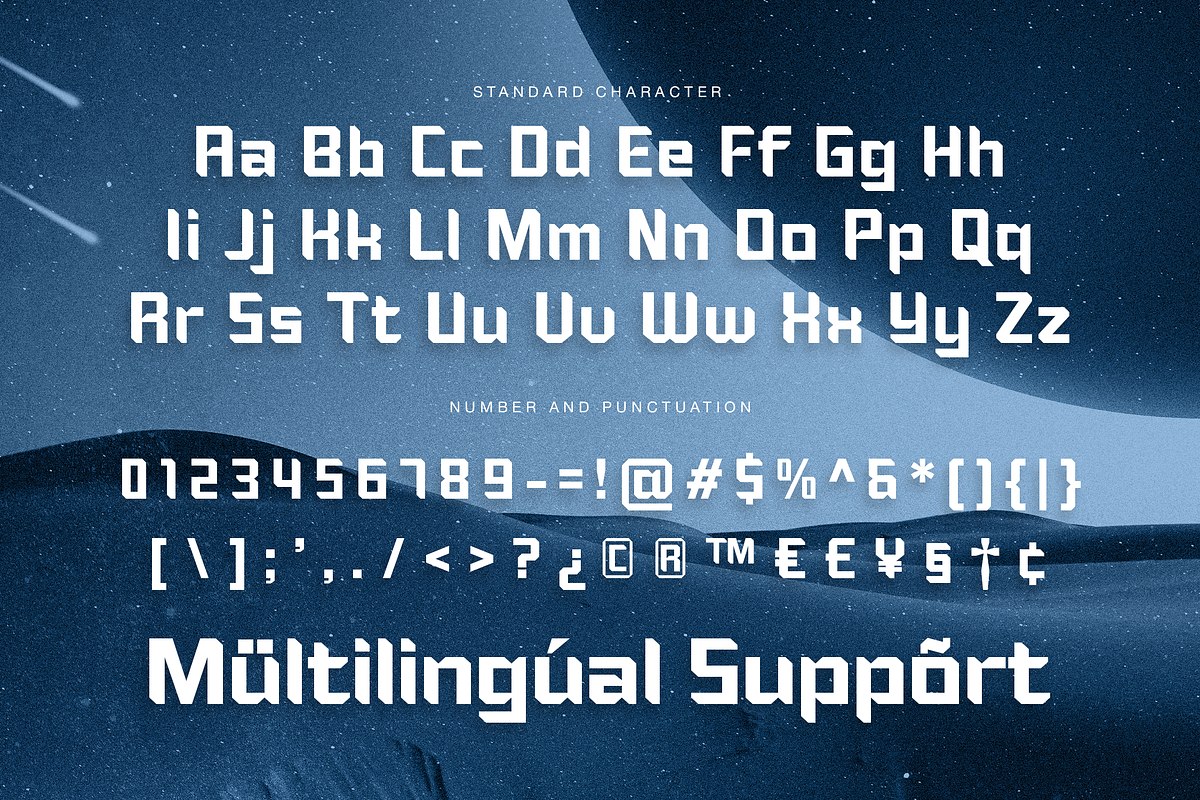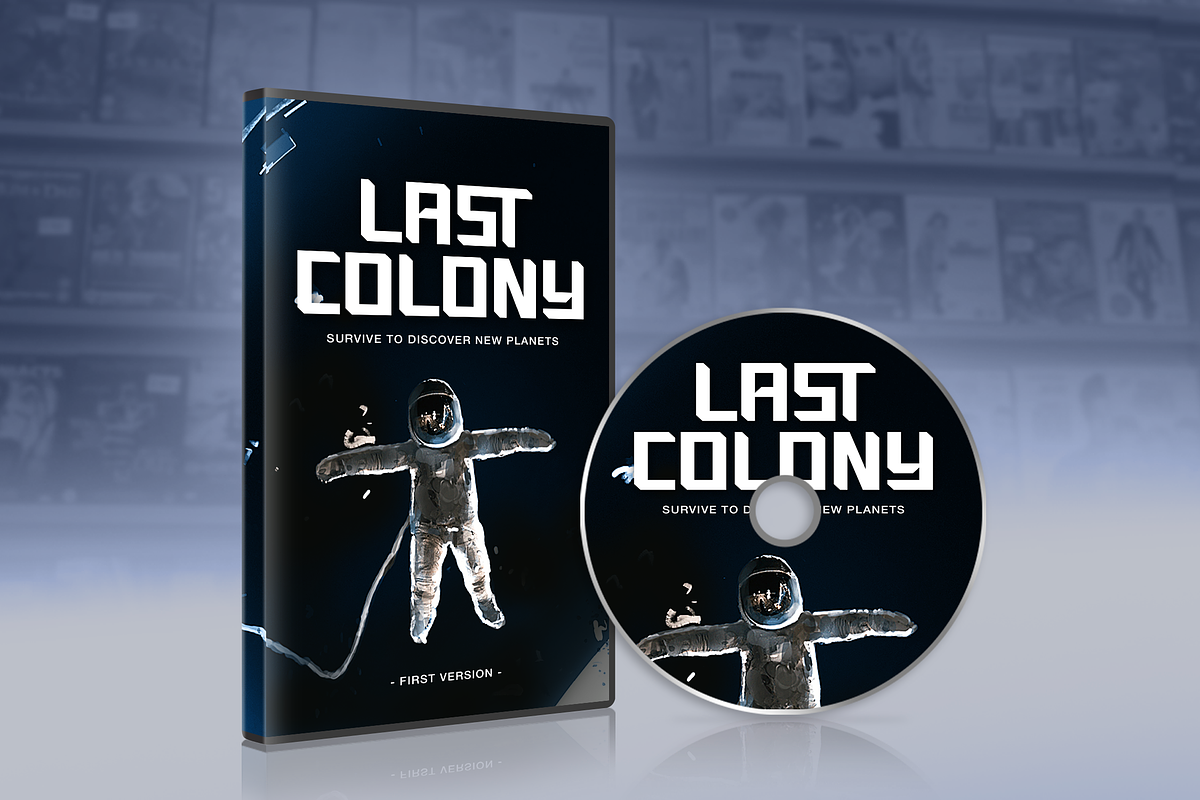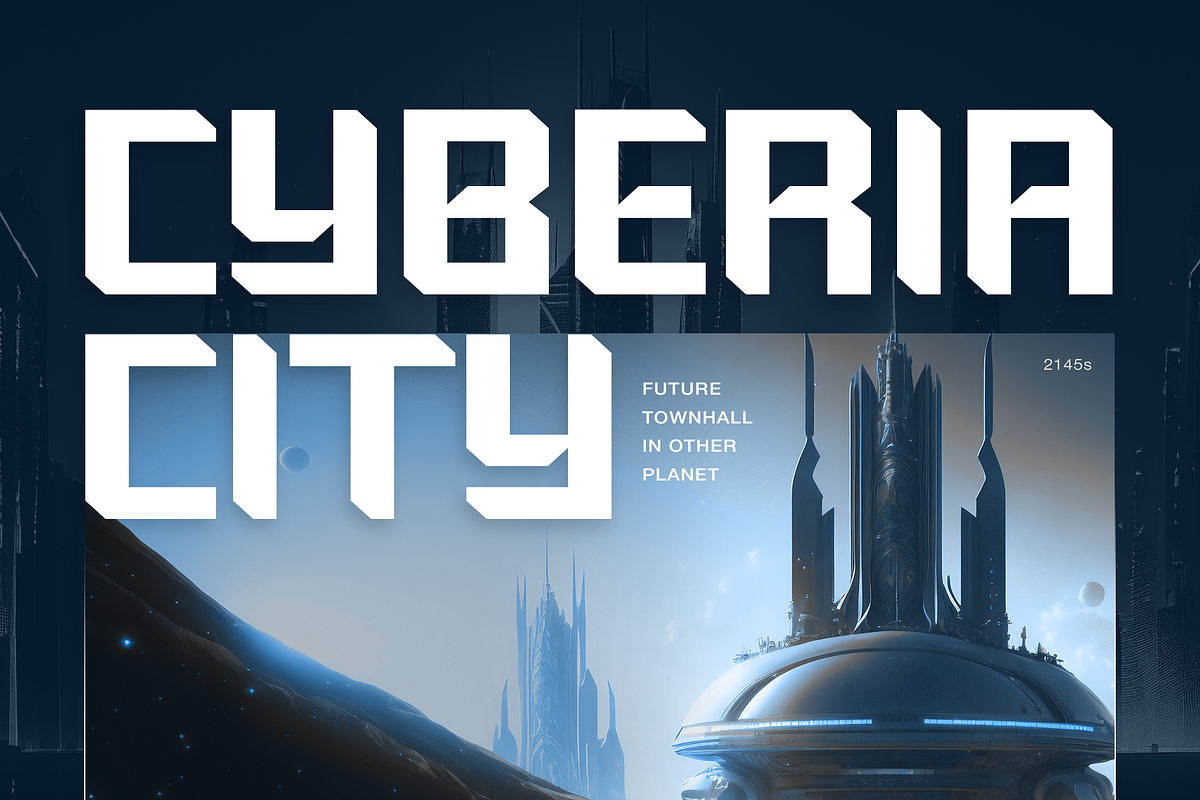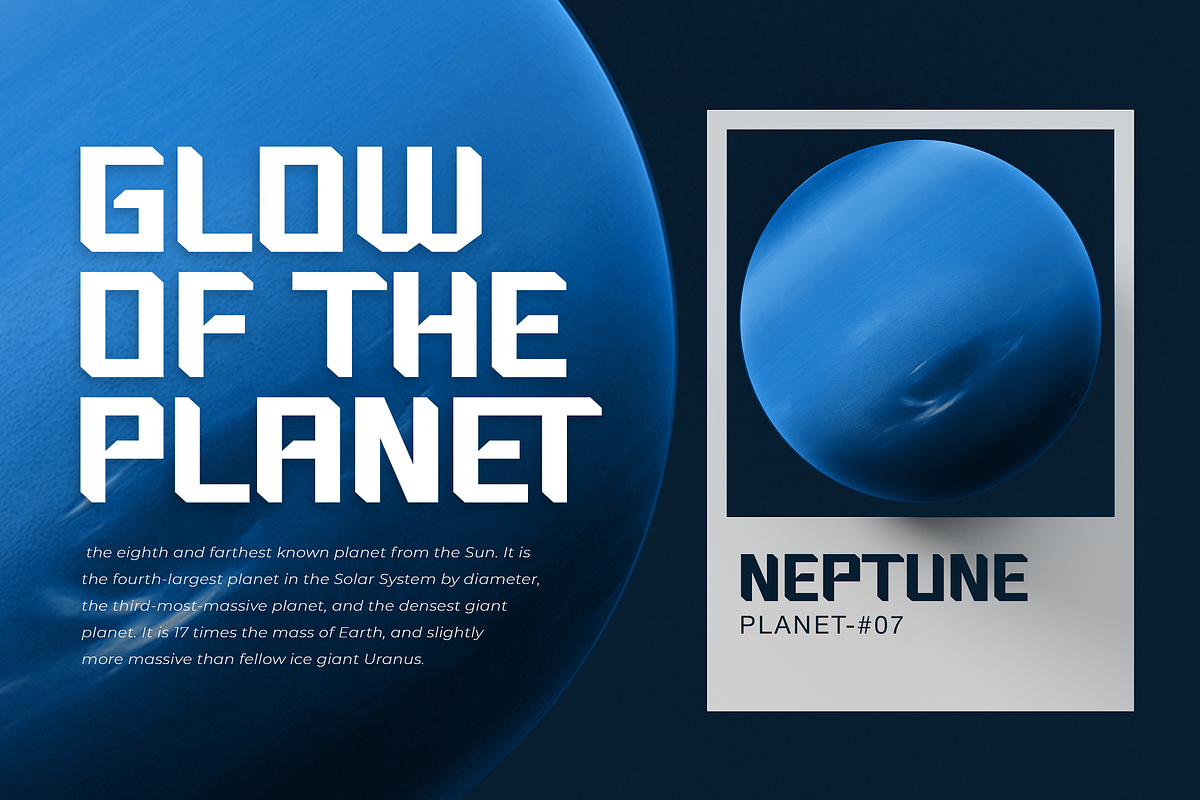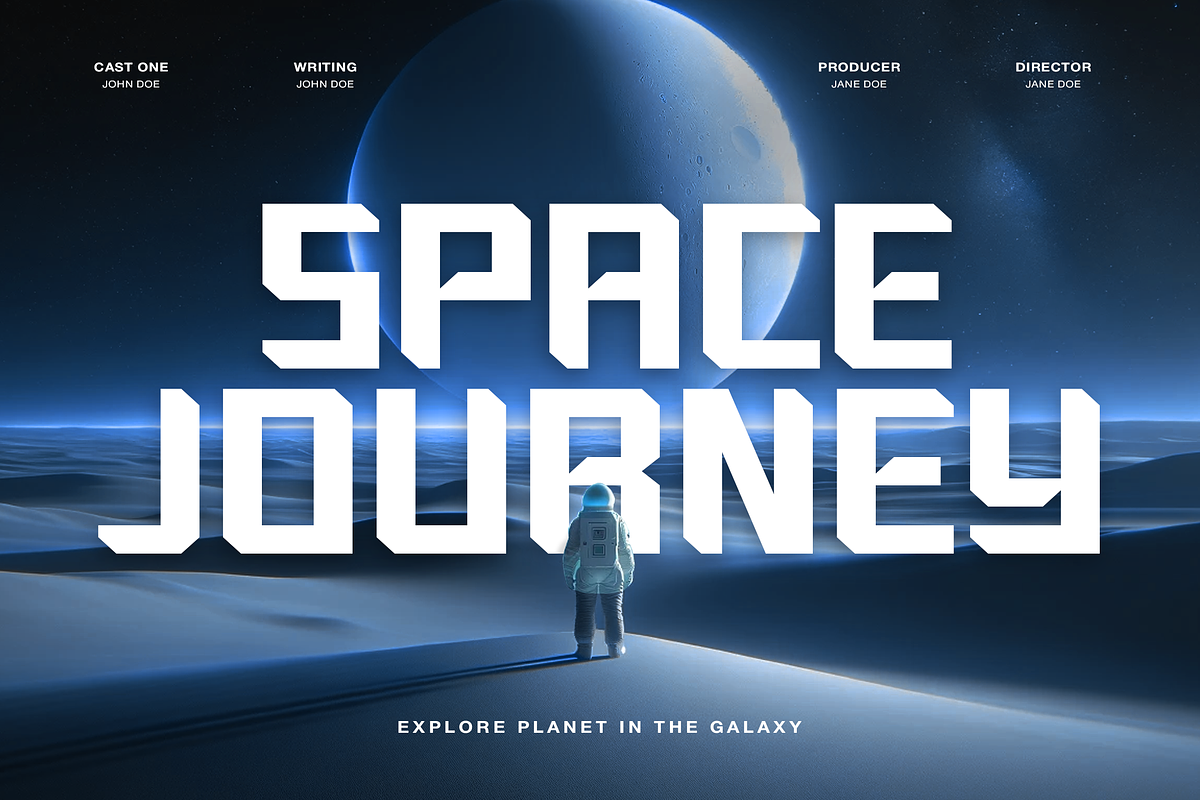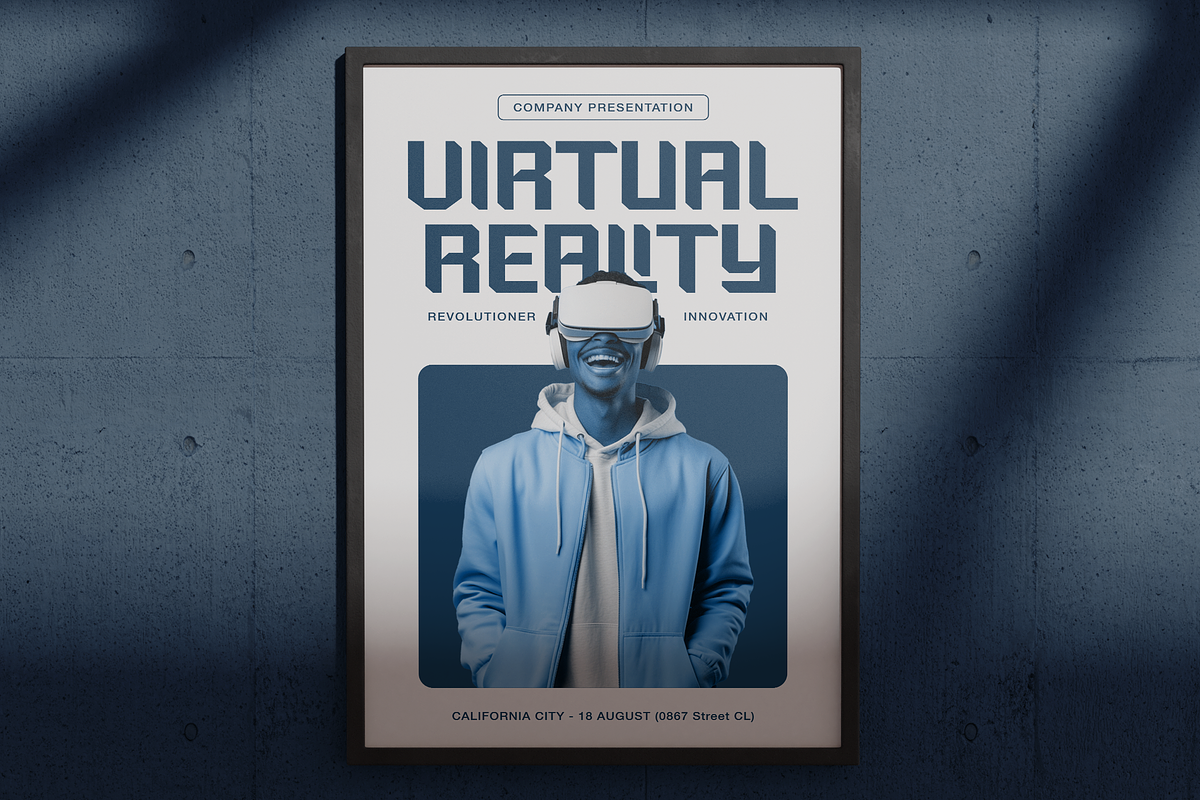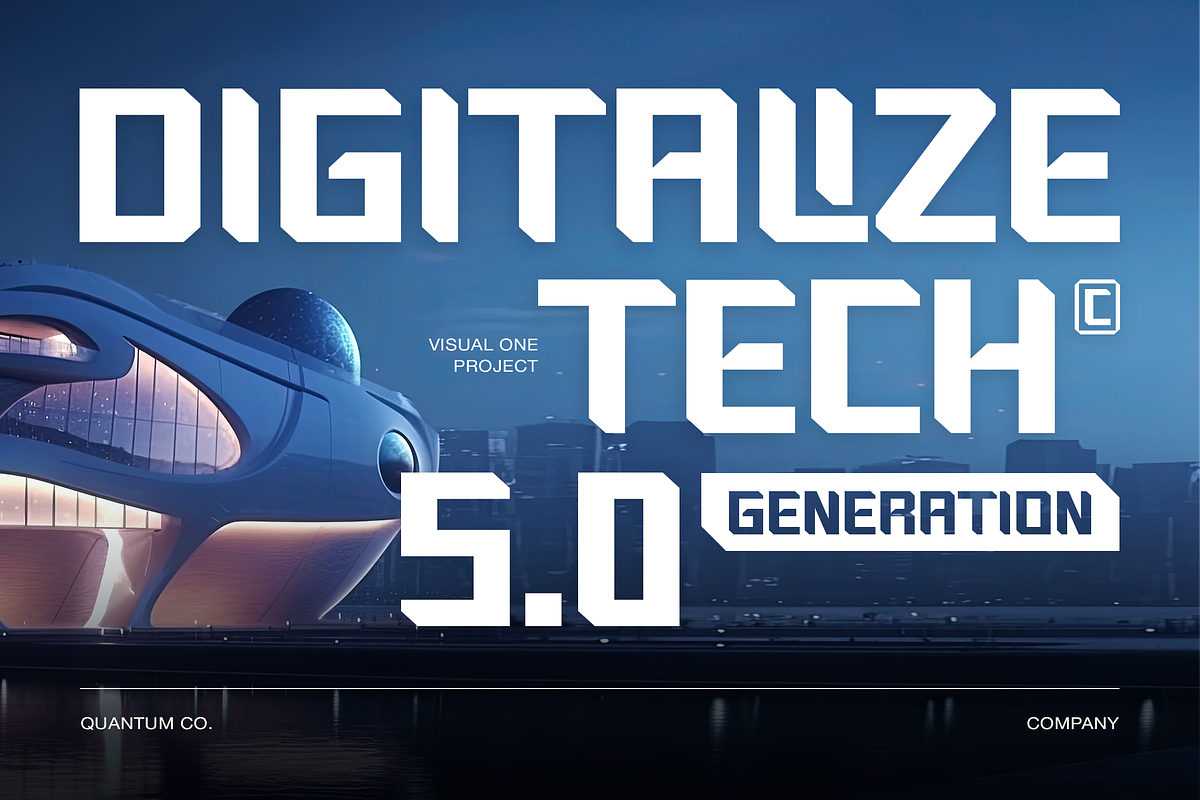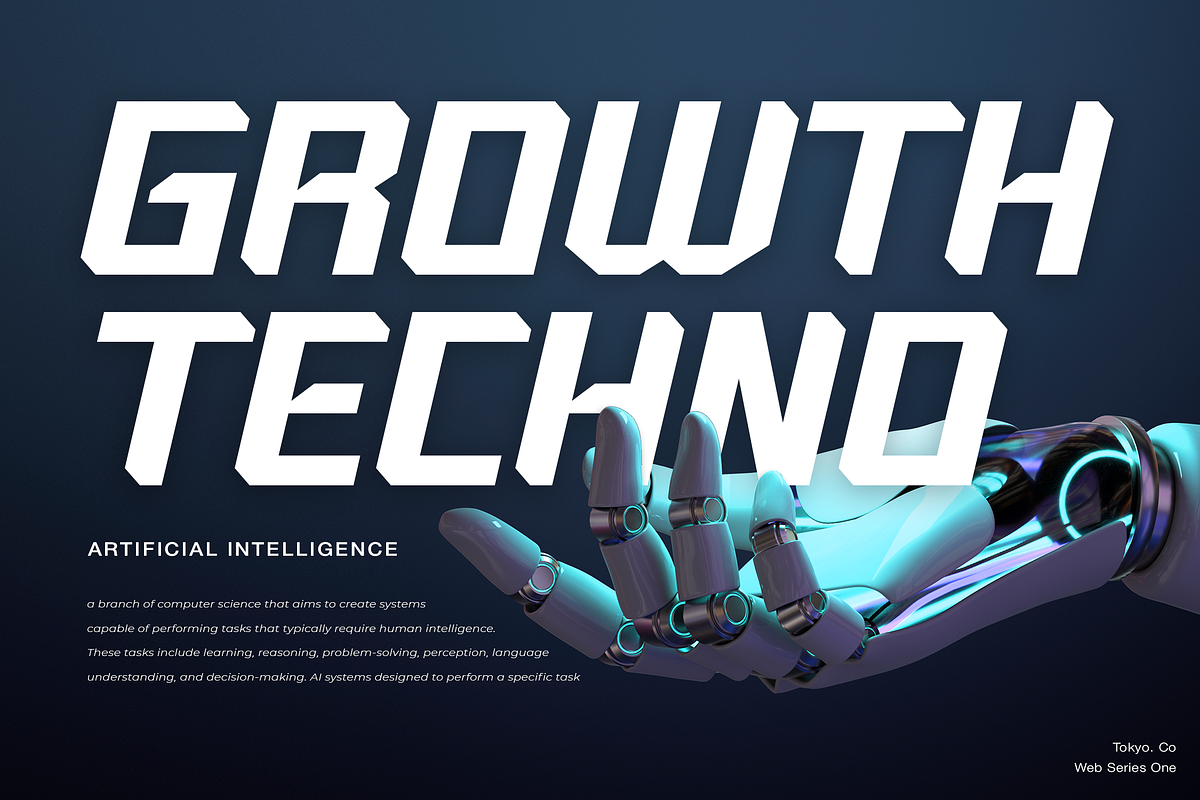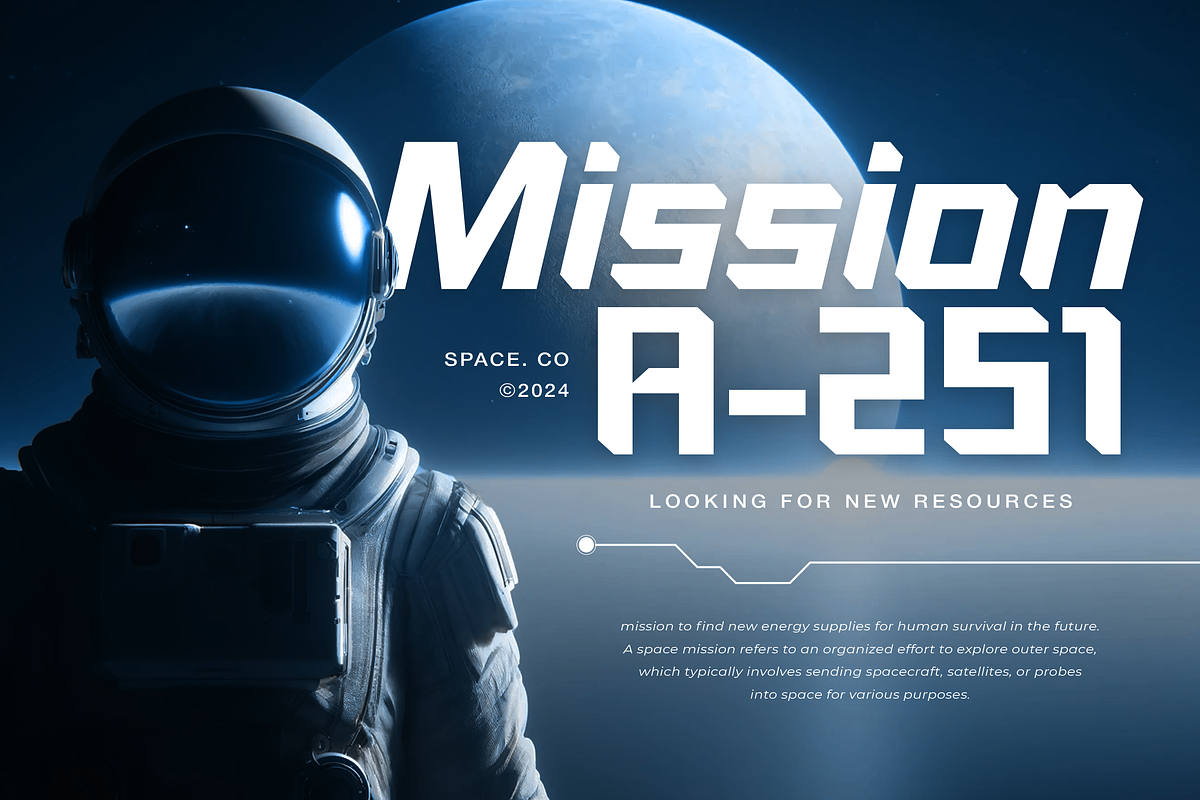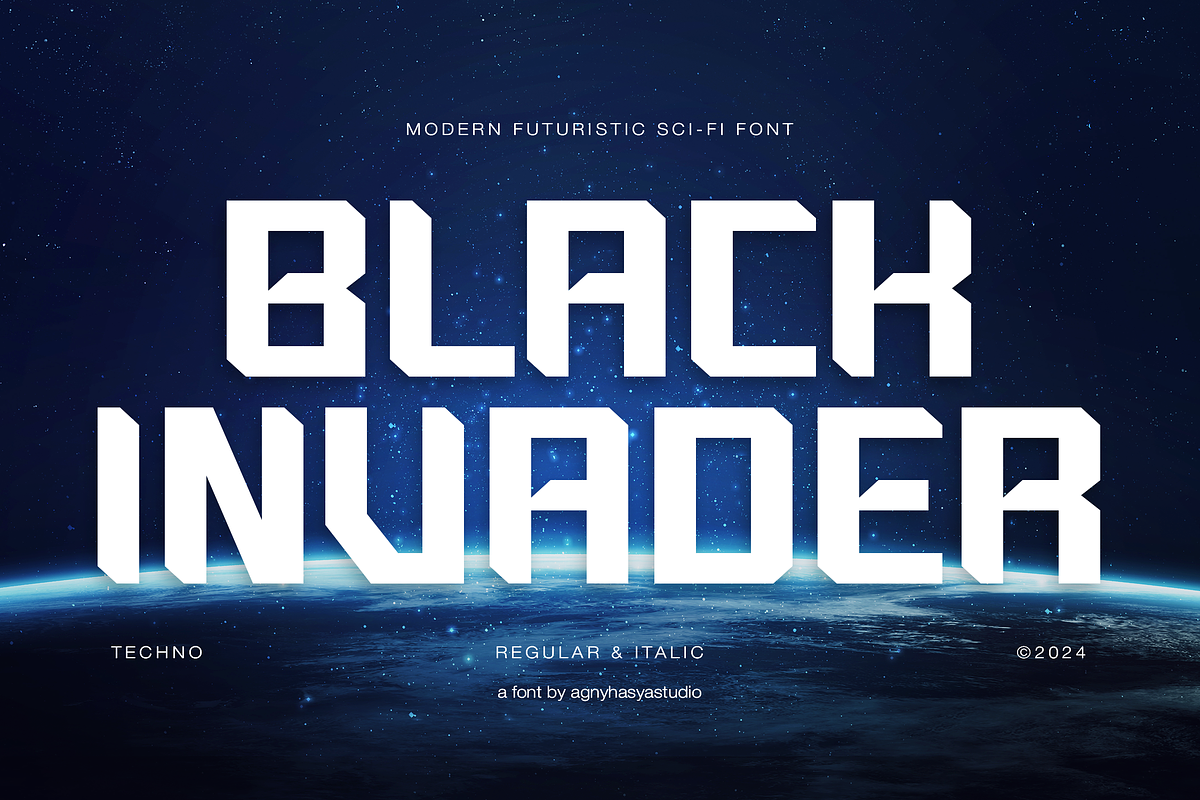
Black Invader
Introducing Black Invader a Modern Futuristic Display Typeface. This modern, cutting-edge display typeface perfectly captures next-generation aesthetics. Its unique appeal makes it ideal for advanced technology, sci-fi concepts, eSports, gaming, robotics, and computing. It Also Supports Multilingual Characters, Making It Perfect for Use in Various Languages.
- Uppercase, Lowercase, Numeral & Punctuation
- Alternates and Ligatures